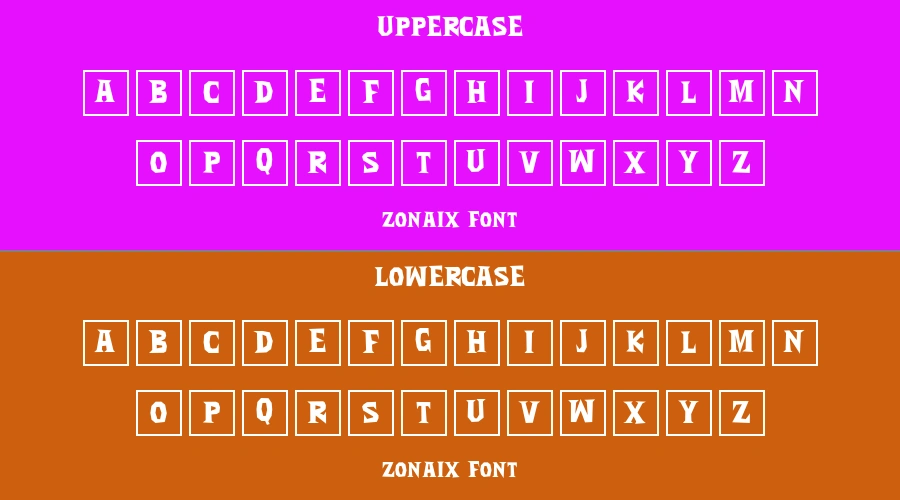
About Zonaix Font
Zonaix Font stands out for its distinctive combination of geometric precision and exceptional clarity. Ideal for brand guidelines, it provides the accuracy and design innovation that professional projects demand. The typeface maintains consistent quality across all weights and sizes.
Key features include refined tapered strokes and practical brand signatures, enhancing typographic expression. In colophons applications, Zonaix Font demonstrates exceptional emotional response. The cap height ratio and user perception contribute to its distinctive character and professional appeal.